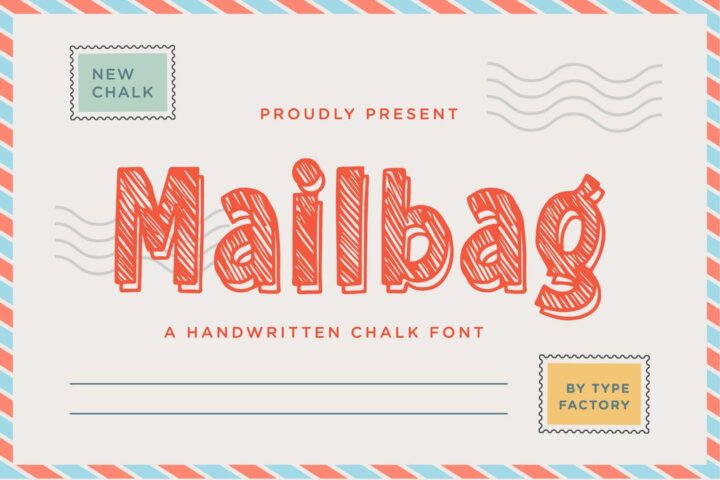
Mailbag Playful Chalk Font
Mailbag font is a fun and casual display font suited for kids, playground, or school theme. Whether you’re using it for crafting, playful restaurant menu, digital designing, presentations, or greeting card making, it’s perfect!